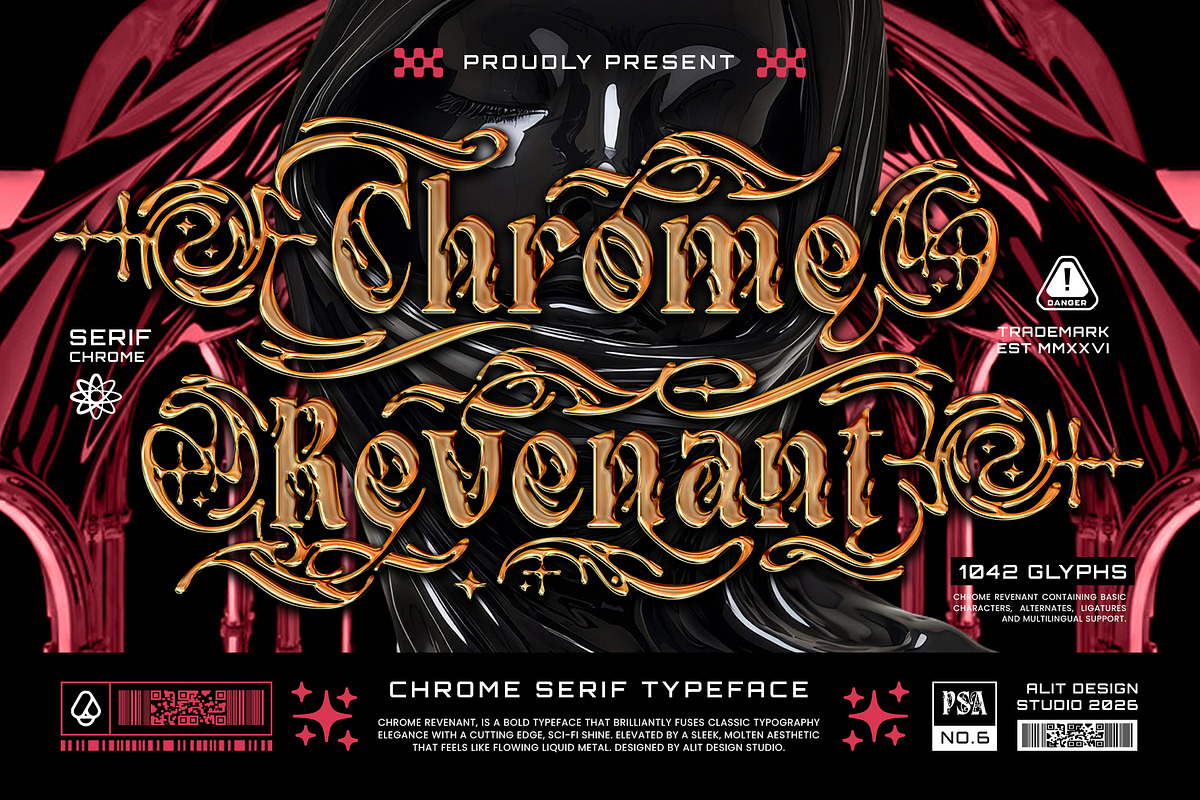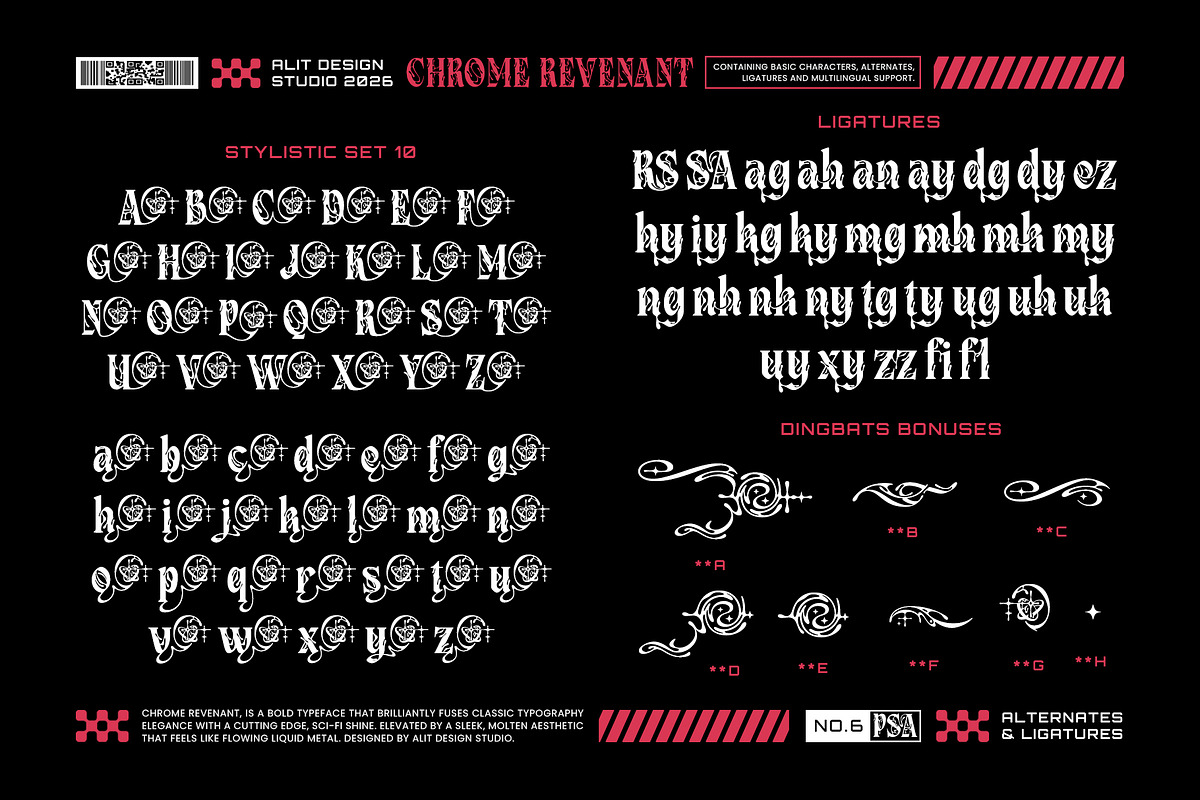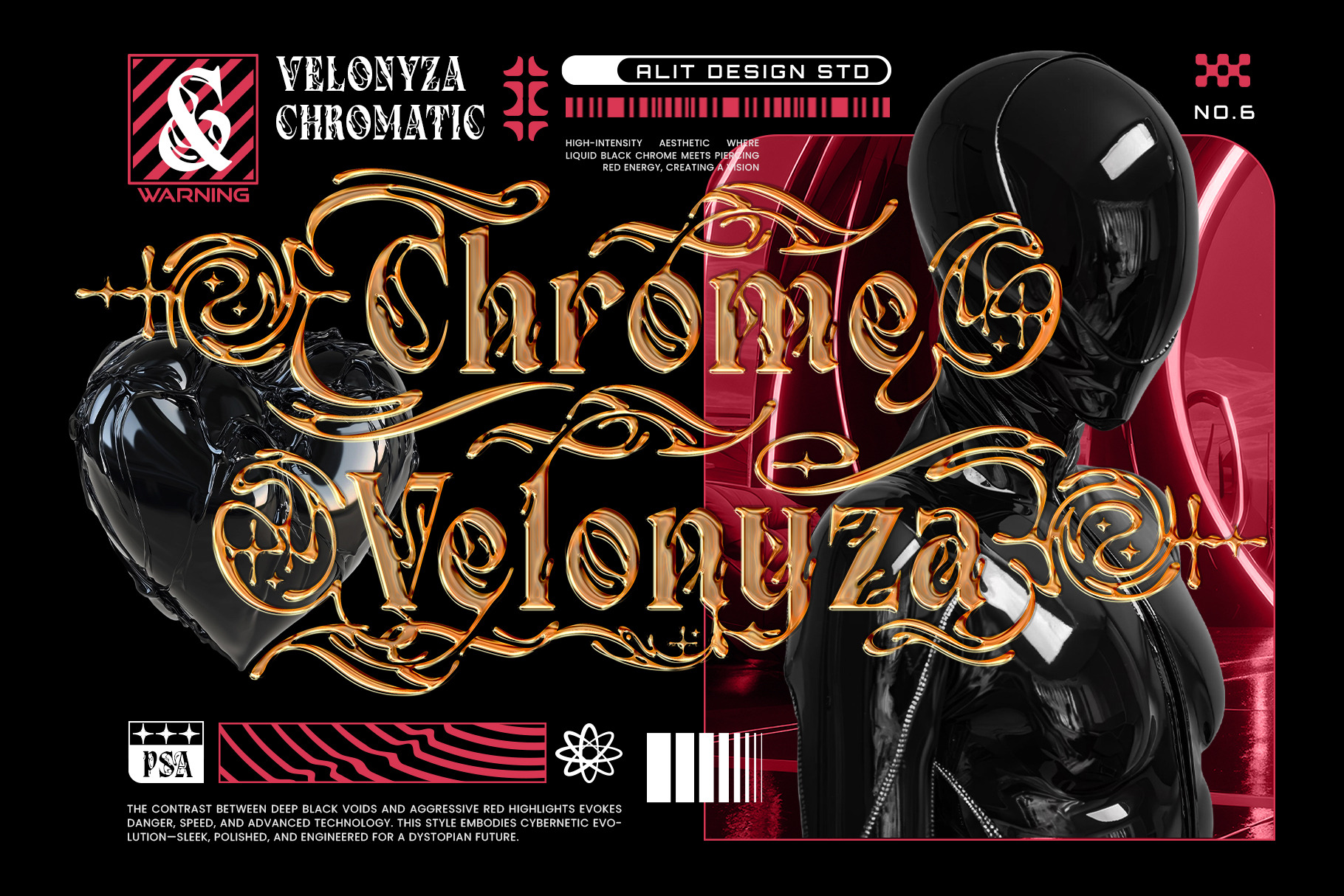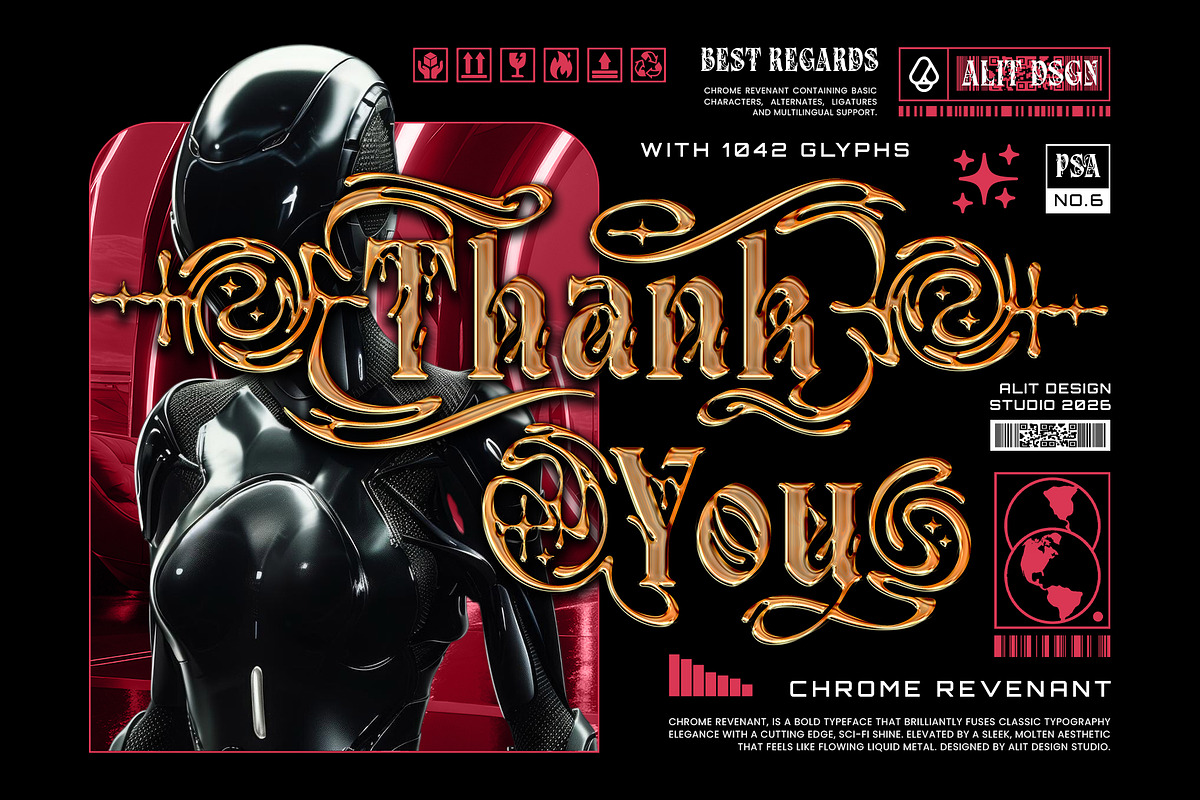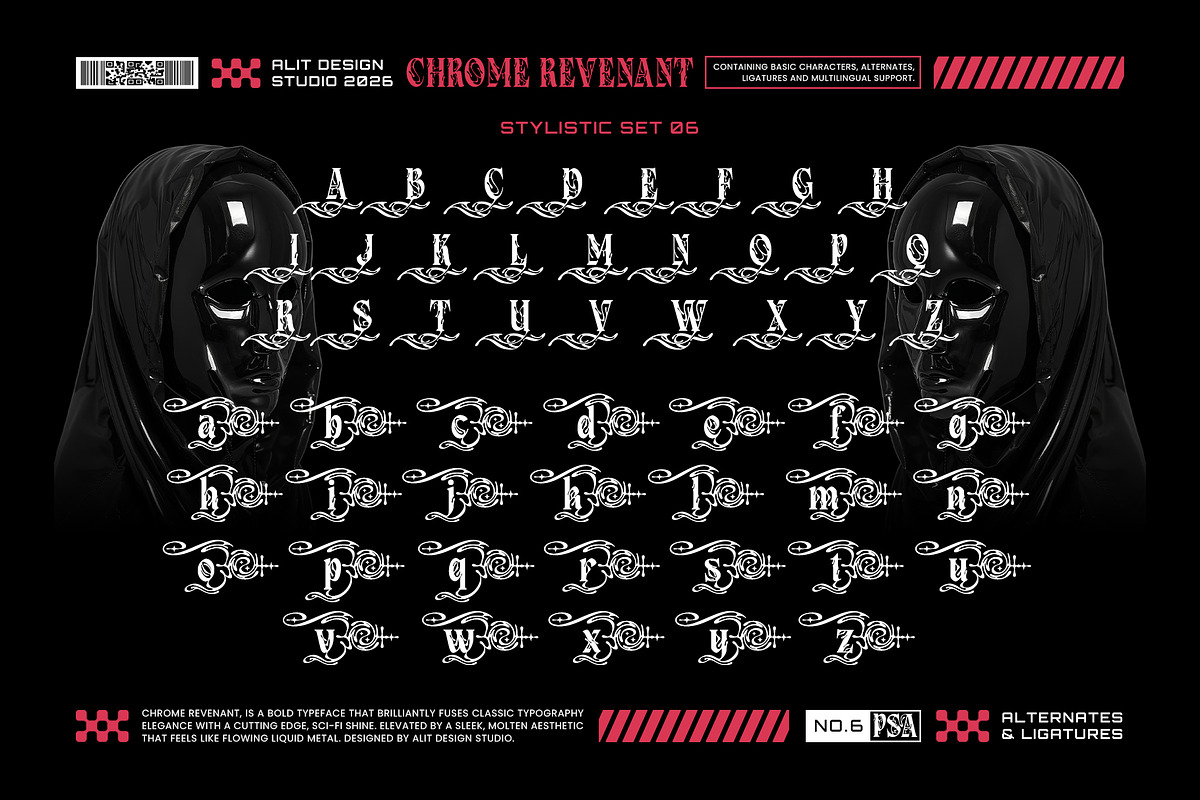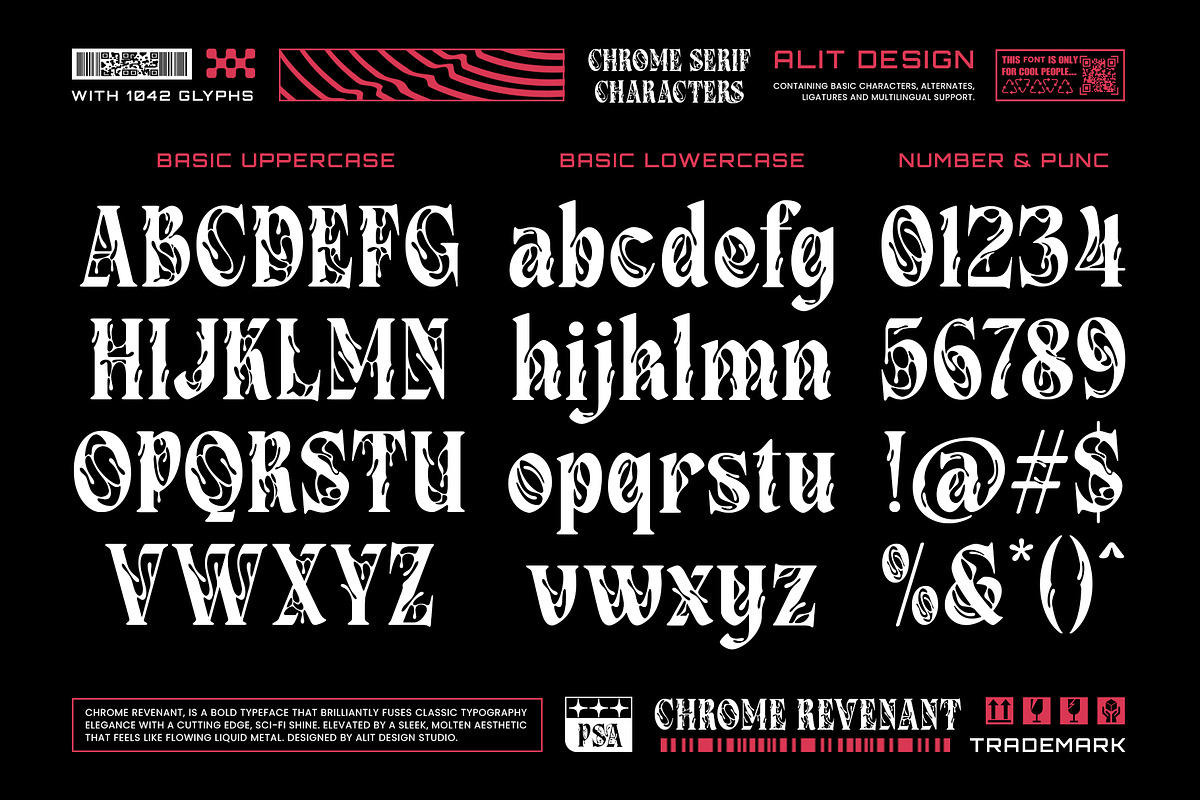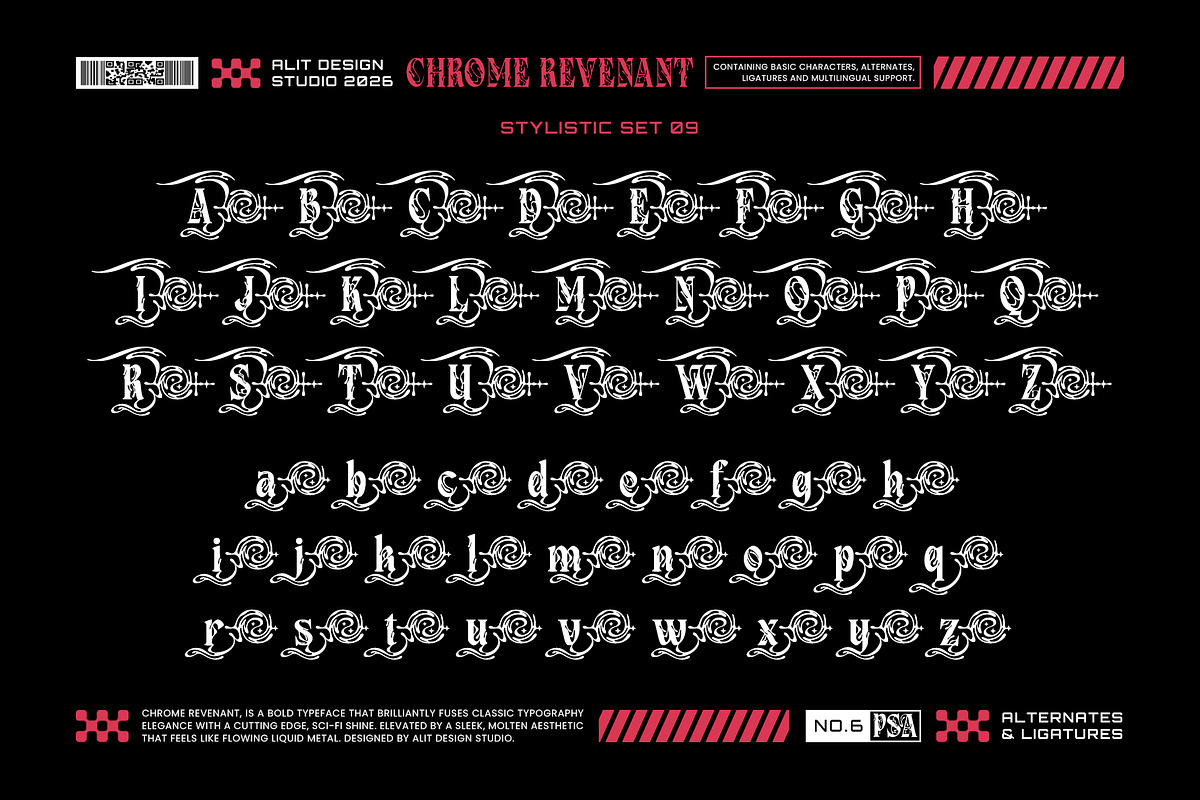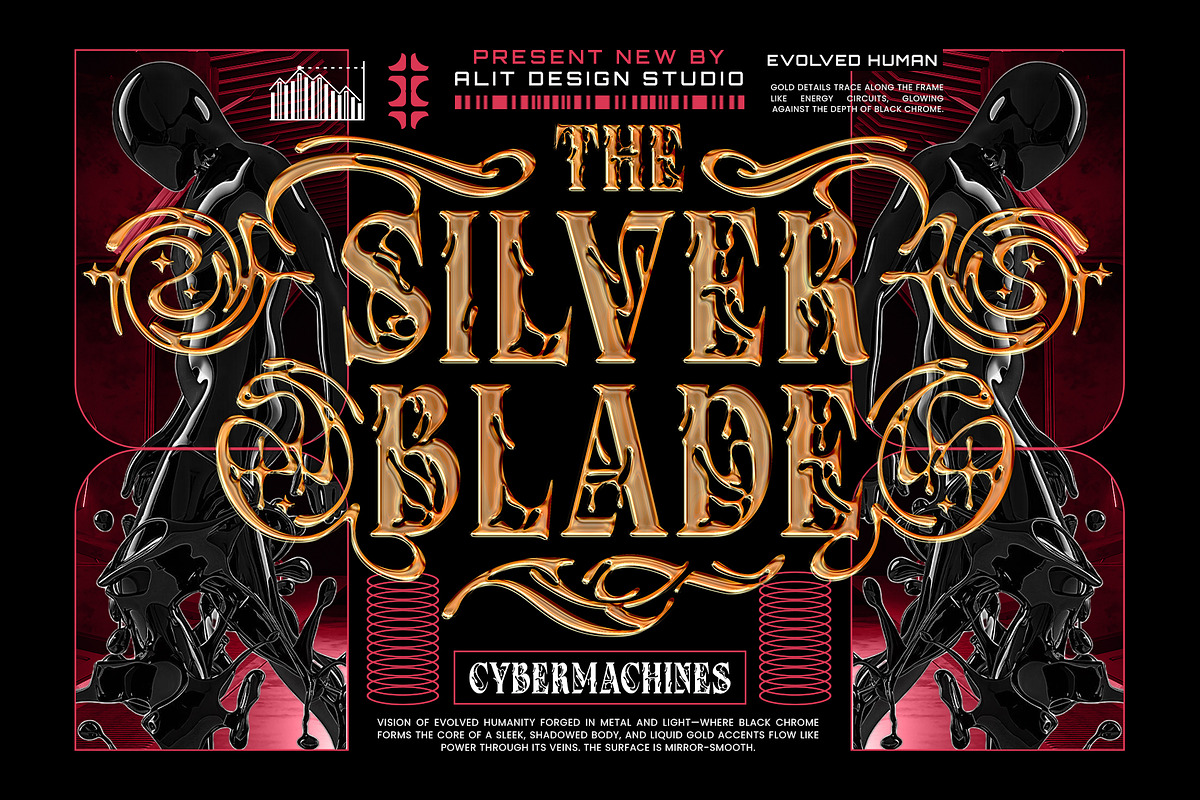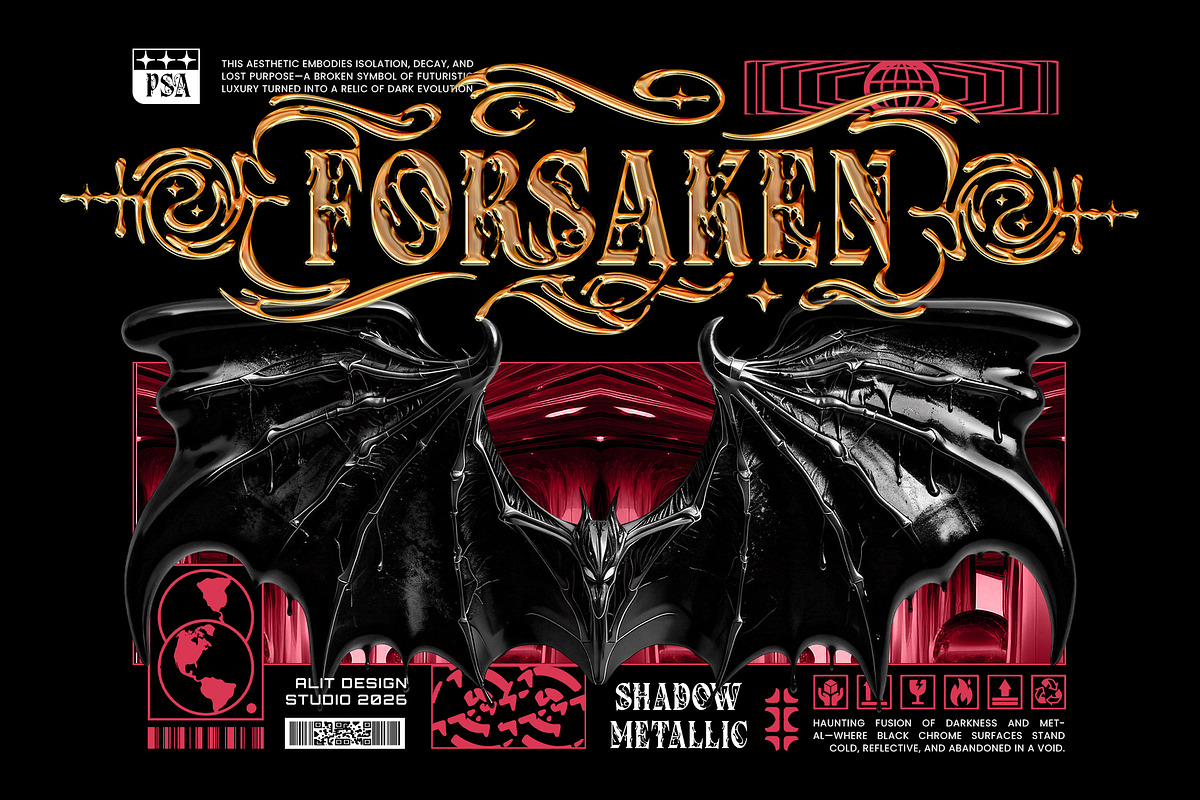
Chrome Revenant Typeface
Chrome Revenant - Futuristic Liquid Metal Serif
Step into a new dimension of typography with Chrome Revenant. Brilliantly fusing classic typography elegance with a cutting-edge, sci-fi shine, Chrome Revenant is a bold serif typeface designed to make an unforgettable impact. Elevated by a sleek, molten aesthetic, every character feels like flowing liquid metal—capturing a perfect balance of dark elegance, high-fashion futurism, and beyond-emotionless perfection.
Designed for creators who want to push boundaries, this typeface is an absolute powerhouse. It comes loaded with an incredible 1042 glyphs, offering limitless possibilities for customization. With an extensive range of elaborate stylistic sets, alternates, and ligatures, you can easily transform standard text into a complex, custom-lettered masterpiece that looks like it was forged in a cursed void of advanced technology.
Perfect for: High-end streetwear and apparel design (t-shirts, hoodies), futuristic sci-fi movie posters, dark luxury branding, edgy album artwork, gaming logos, magazine covers, and bold editorial layouts.
- Massive Character Set: 1042 Glyphs in total.
- Extensive Stylistic Sets: Features Stylistic Sets 01 through 09, allowing you to add swirling, metallic flourishes to any word.
- Alternates & Ligatures: Endless combinations to create unique, interlocking typography.
- Complete Basics: Standard Uppercase, Lowercase, Numerals, and Punctuation.
- Multilingual Support: Ready for global design projects.